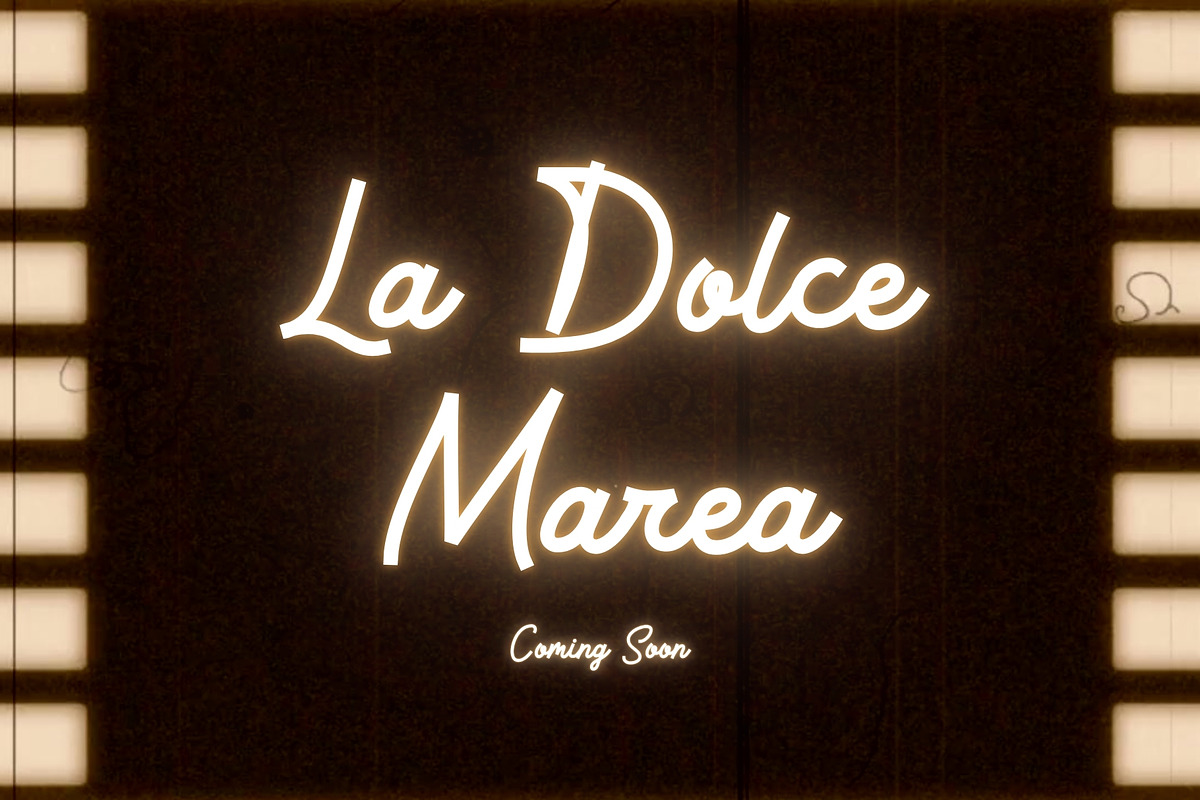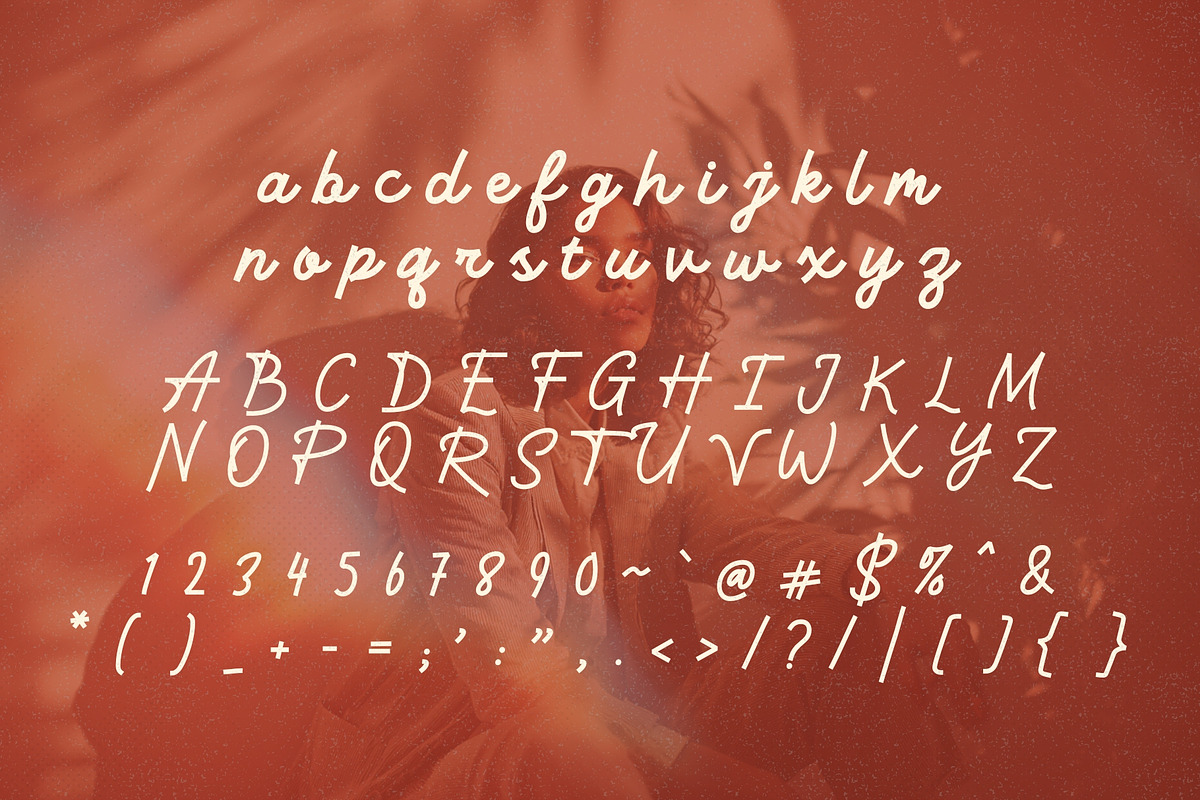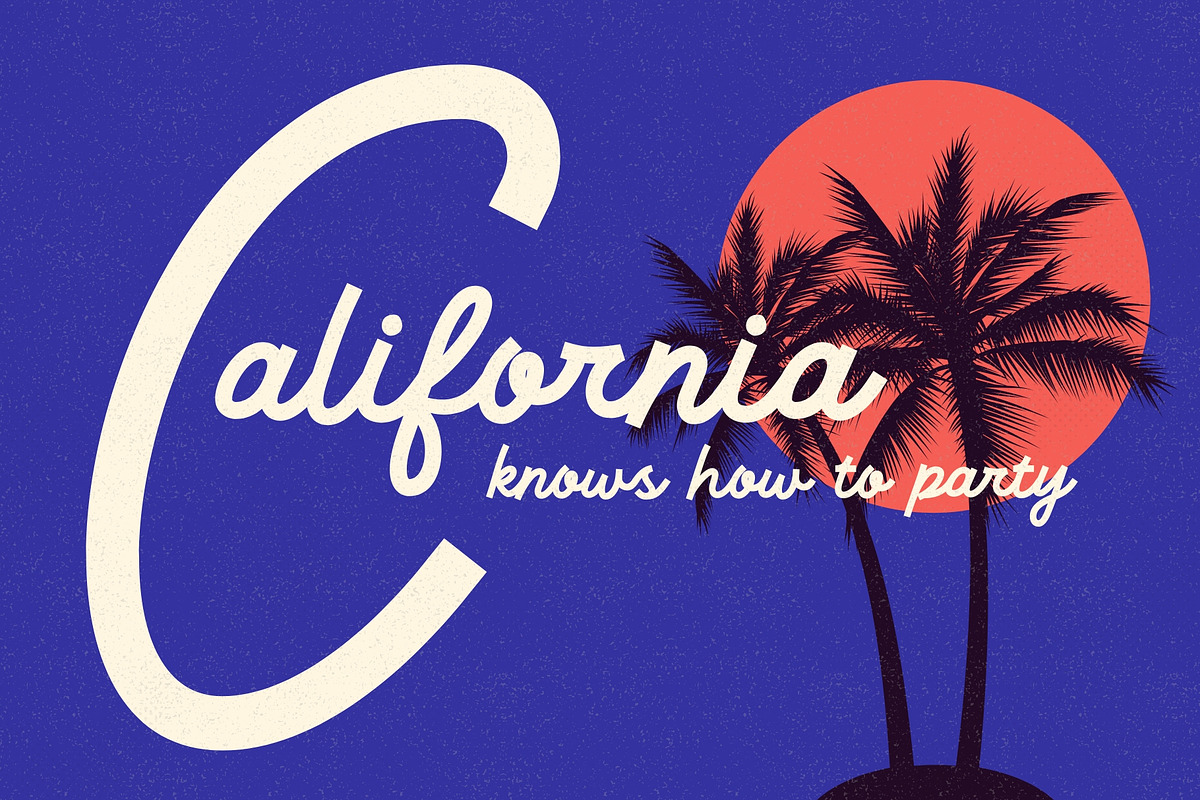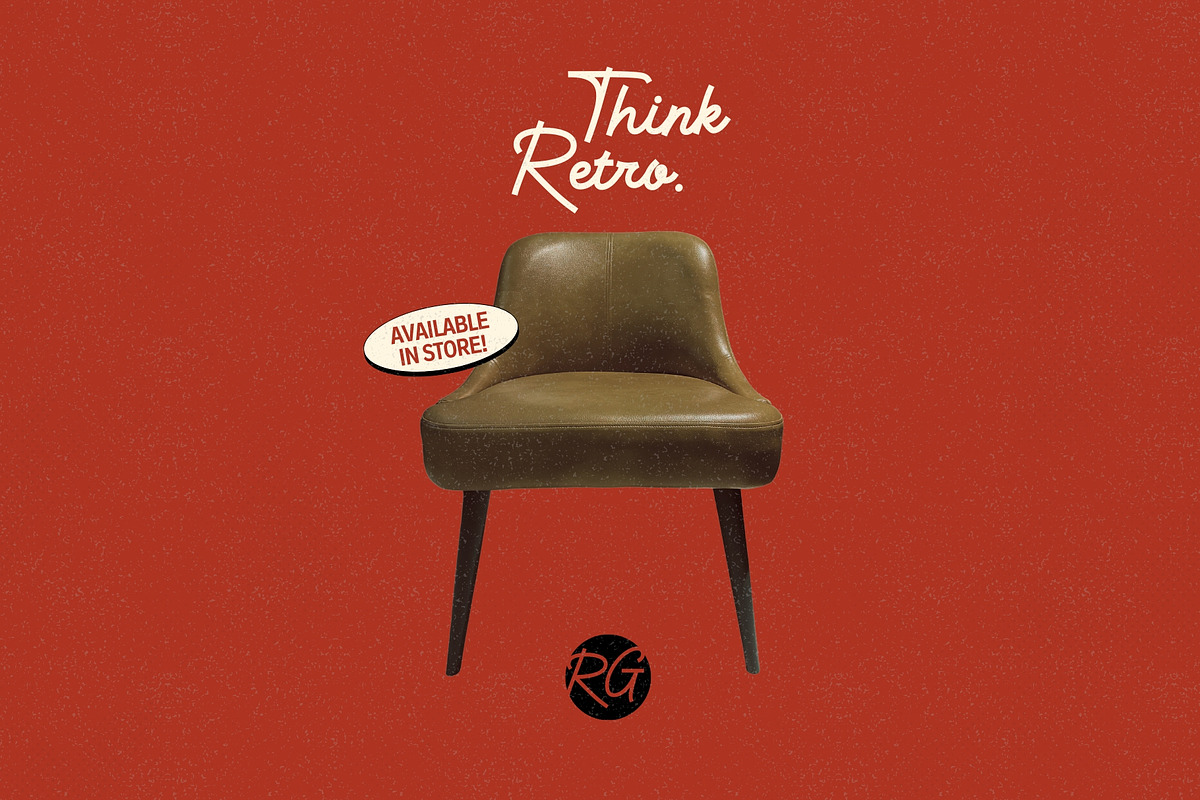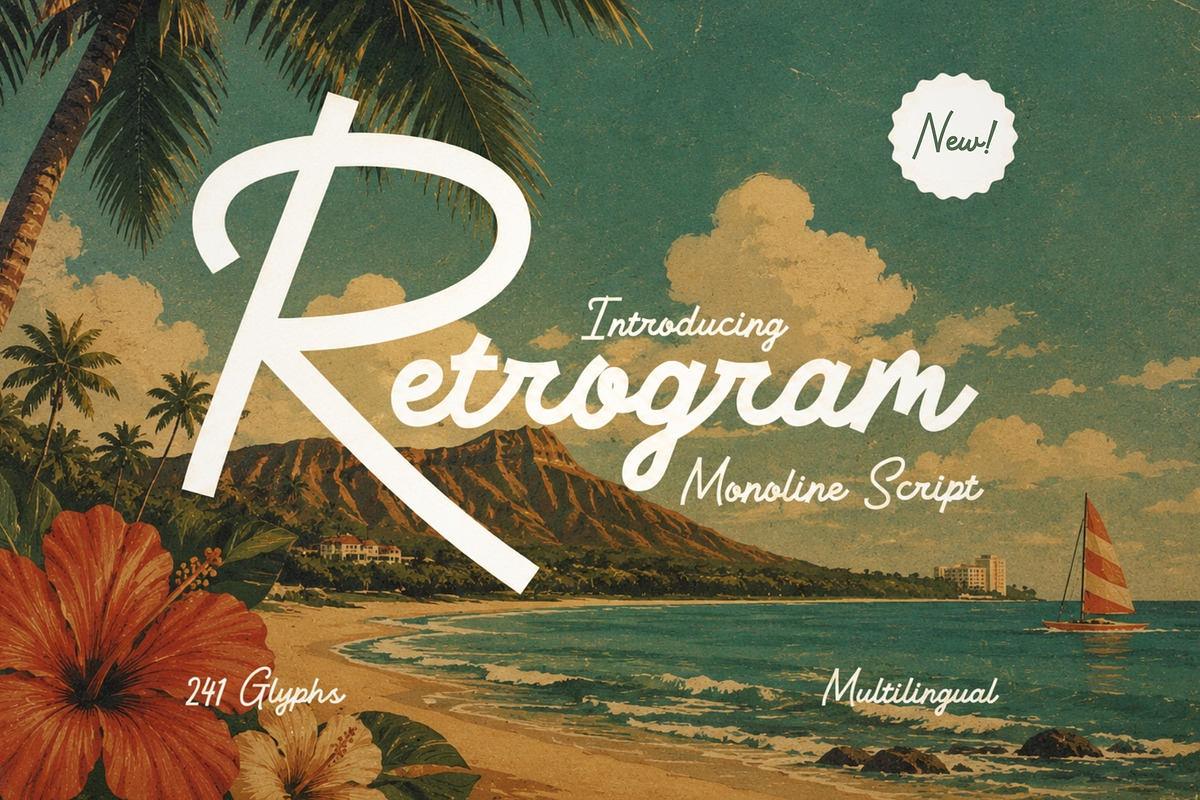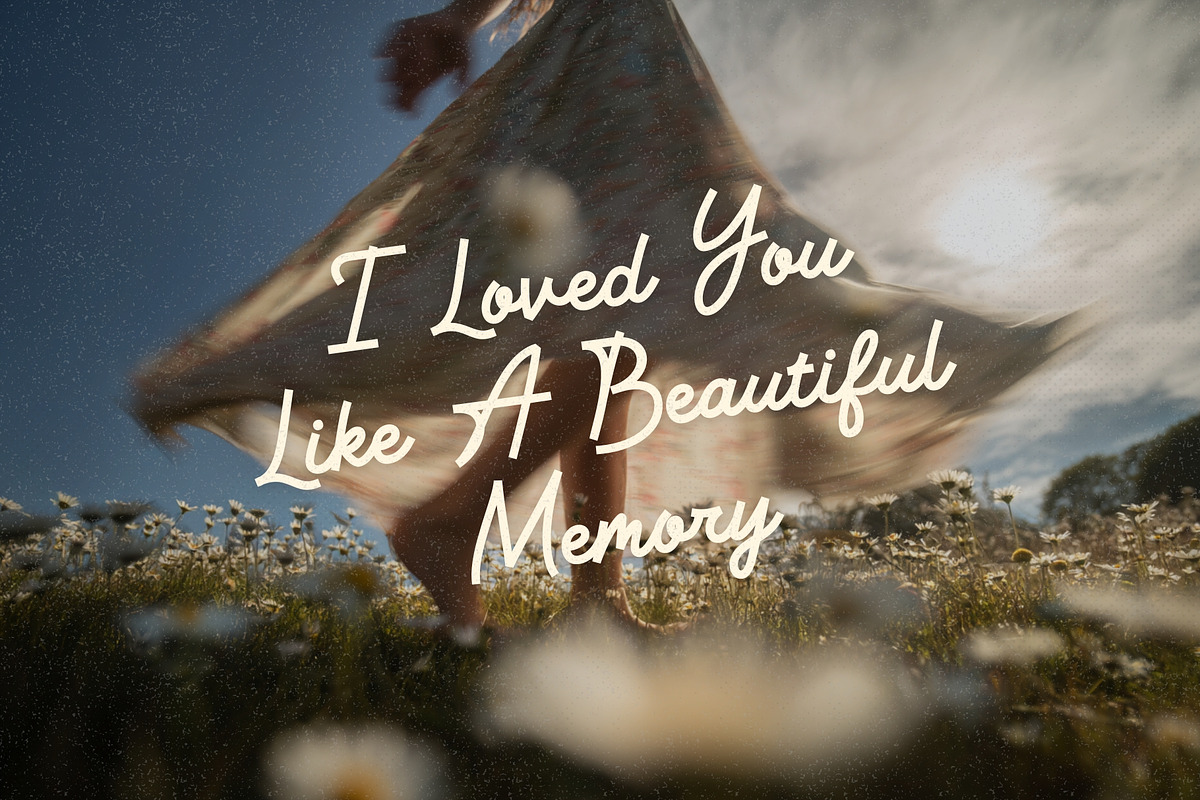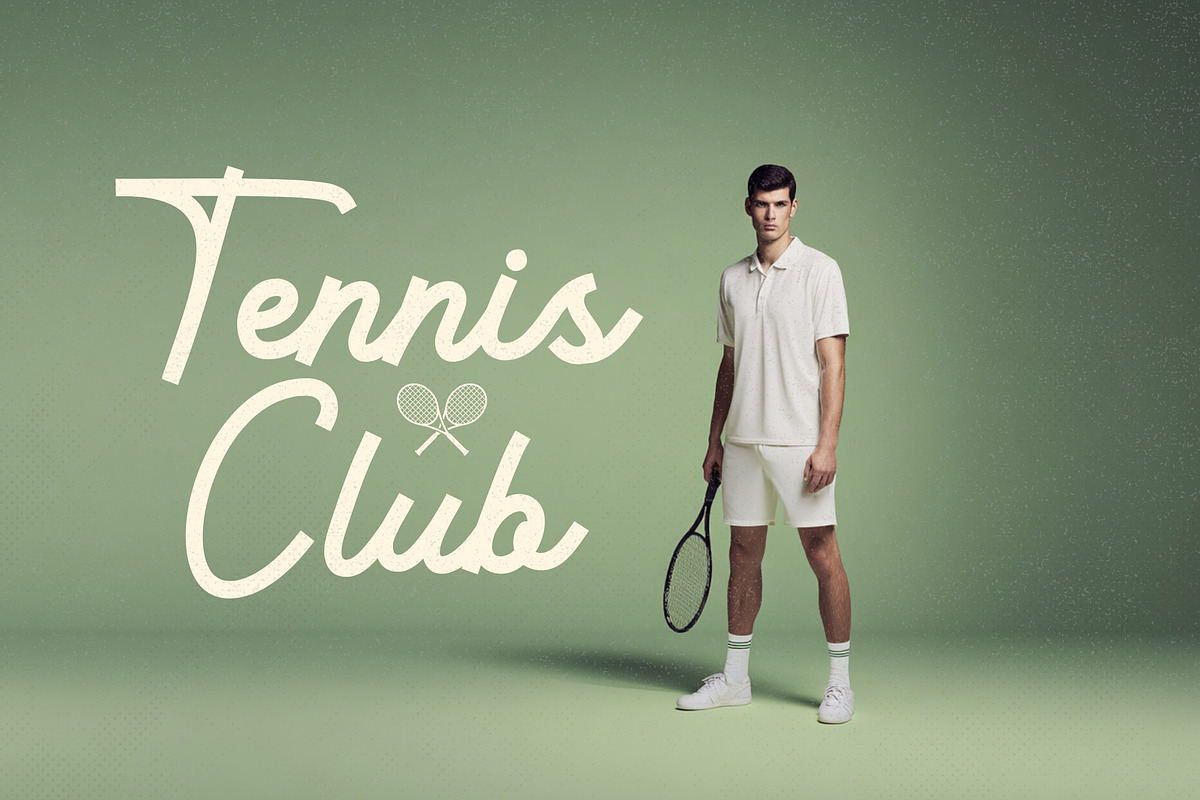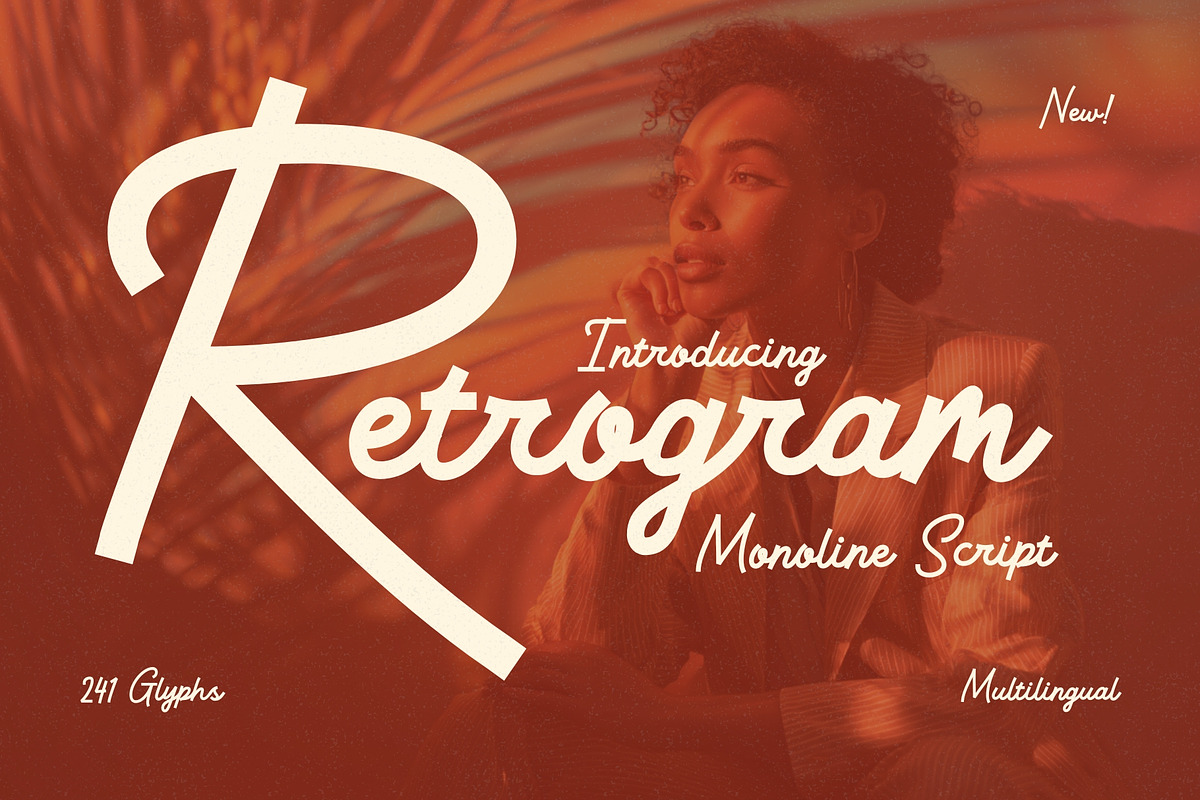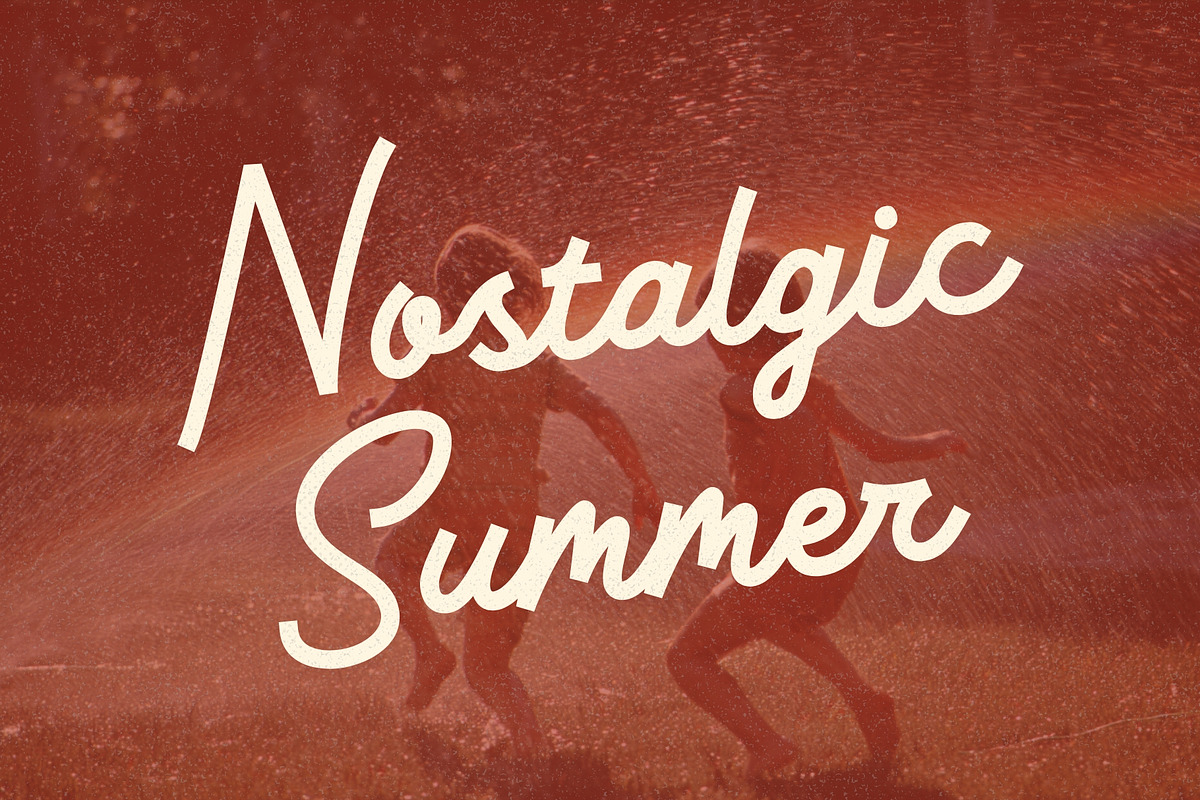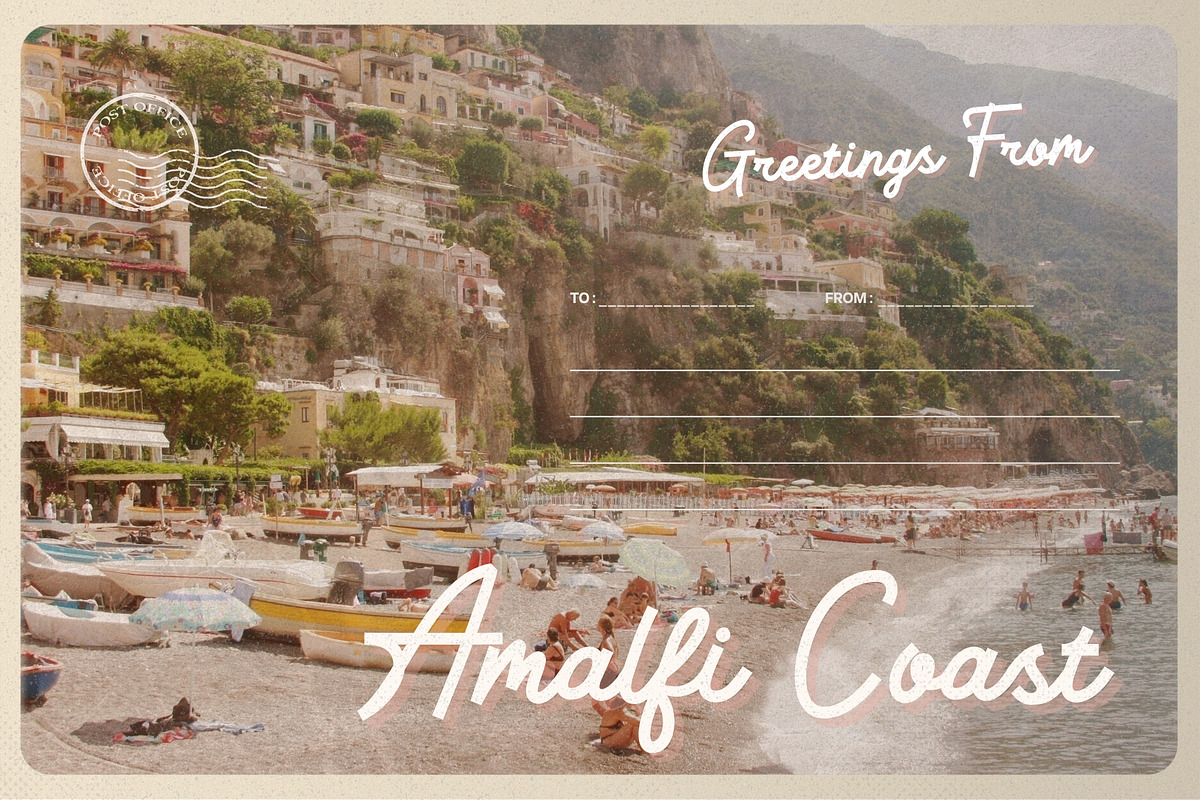
Retrogram - Vintage Monoline Script
Step into the golden glow of nostalgia with Retrogram, a stunning monoline script font that oozes charm, character, and charisma. Inspired by the carefree elegance of mid-century signage, classic soda labels, and retro Americana, Retrogram is more than just a typeface, it’s a time machine for your creativity.
Crafted with meticulous detail, each curve and stroke of Retrogram dances with fluidity, bringing an effortless rhythm to your designs. Whether you're creating a bold movie title, an iconic brand logo, a stylish poster, or an eye-catching headline, Retrogram demands attention without screaming for it and glows with confidence.
What Makes Retrogram Special:
Smooth Monoline Script: Clean, flowing lines with perfect weight balance for a refined, cohesive look.
Vintage Soul, Modern Precision: Retro aesthetics fused with contemporary font technology — fully vector, ultra-crisp.
Phenomenal for Headlines: Designed to shine in large formats — ideal for magazine covers, packaging, YouTube thumbnails, album art, apparel, and signage.
Easy to Use & Versatile: Perfect for both print and digital, from wedding invitations to coffee branding to retro merch.
Retrogram doesn’t whisper nostalgia, it sings it in bold neon. If your project needs heart, flair, and timeless style, this is the font that delivers it all.